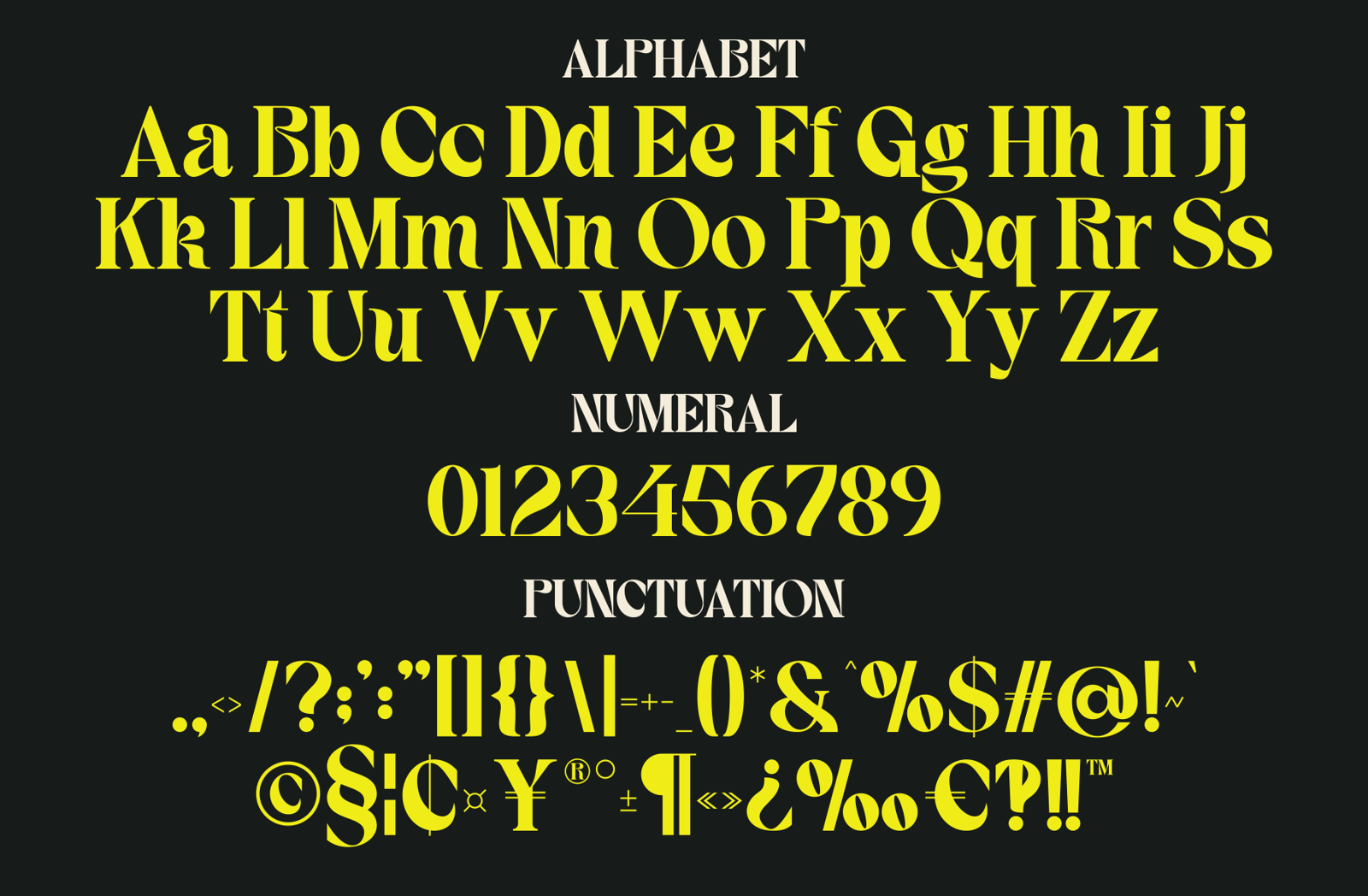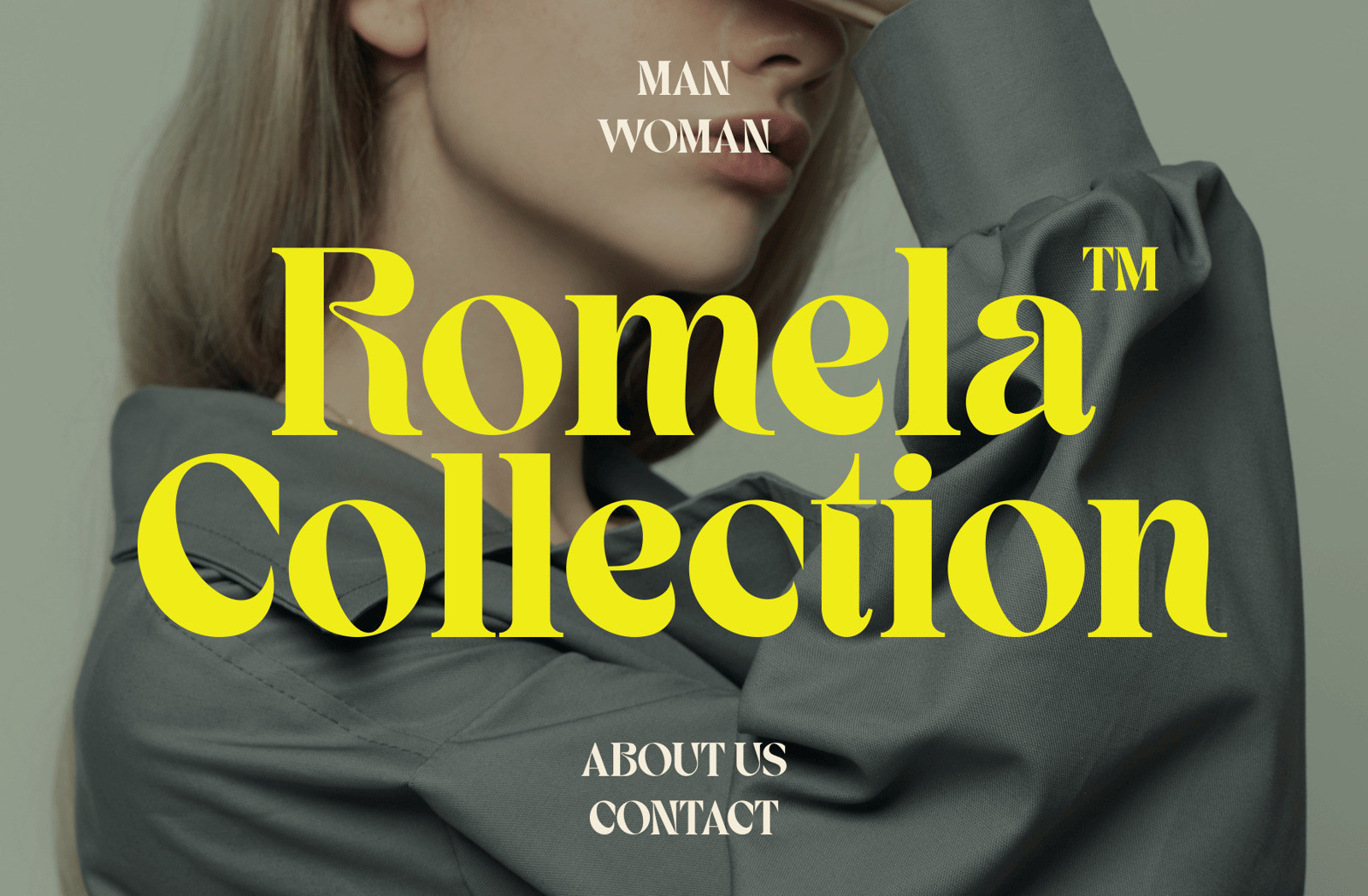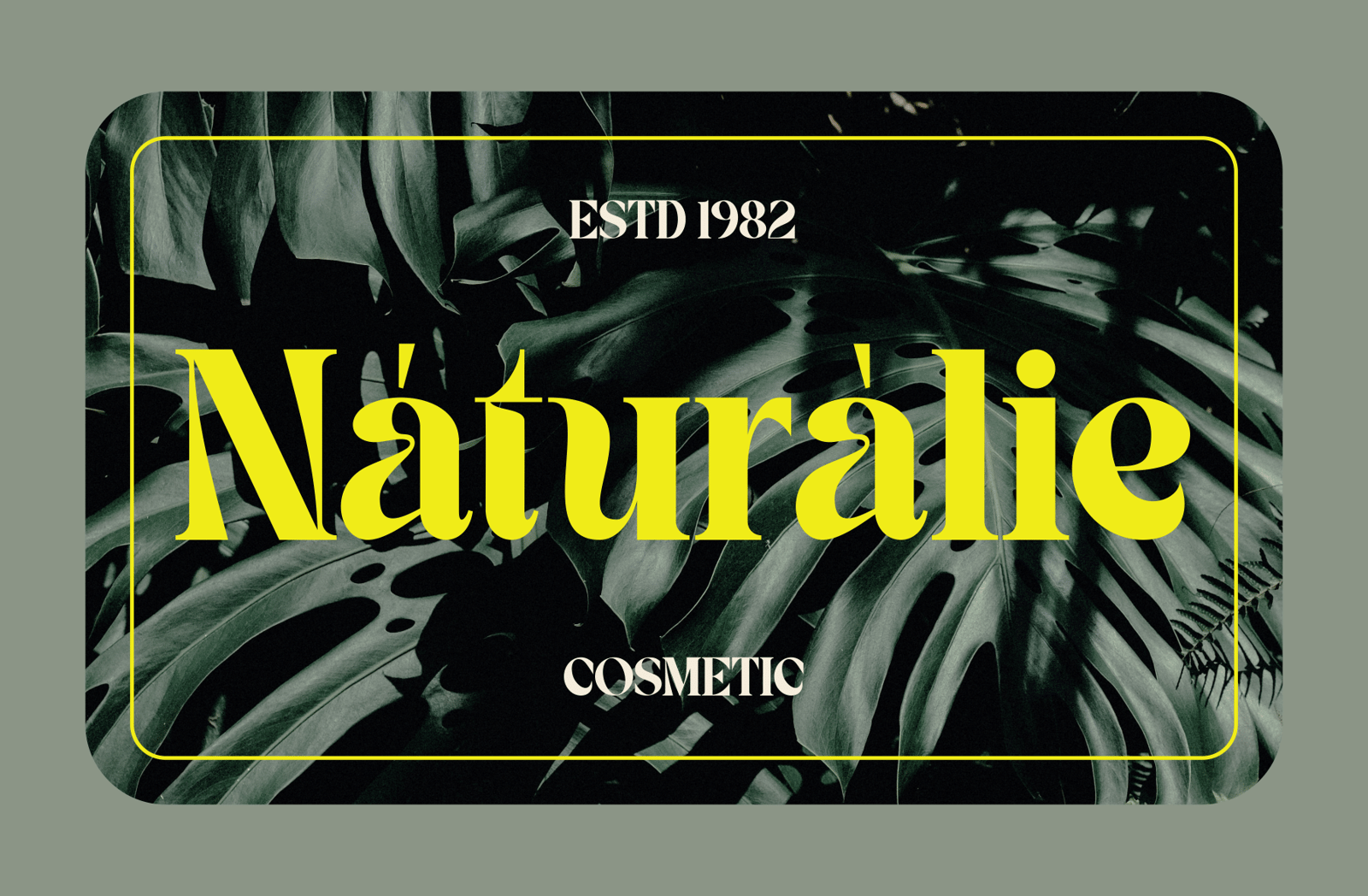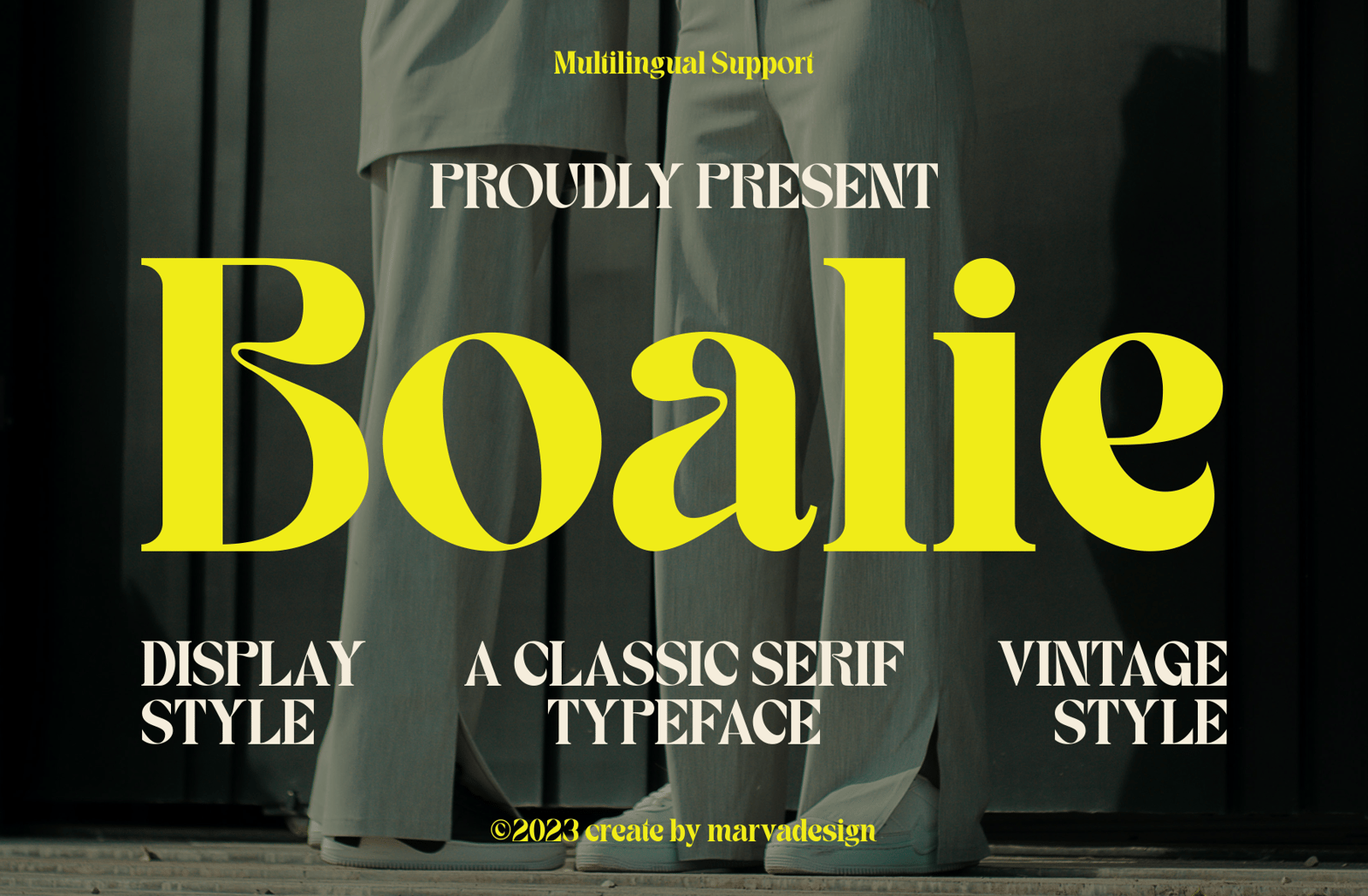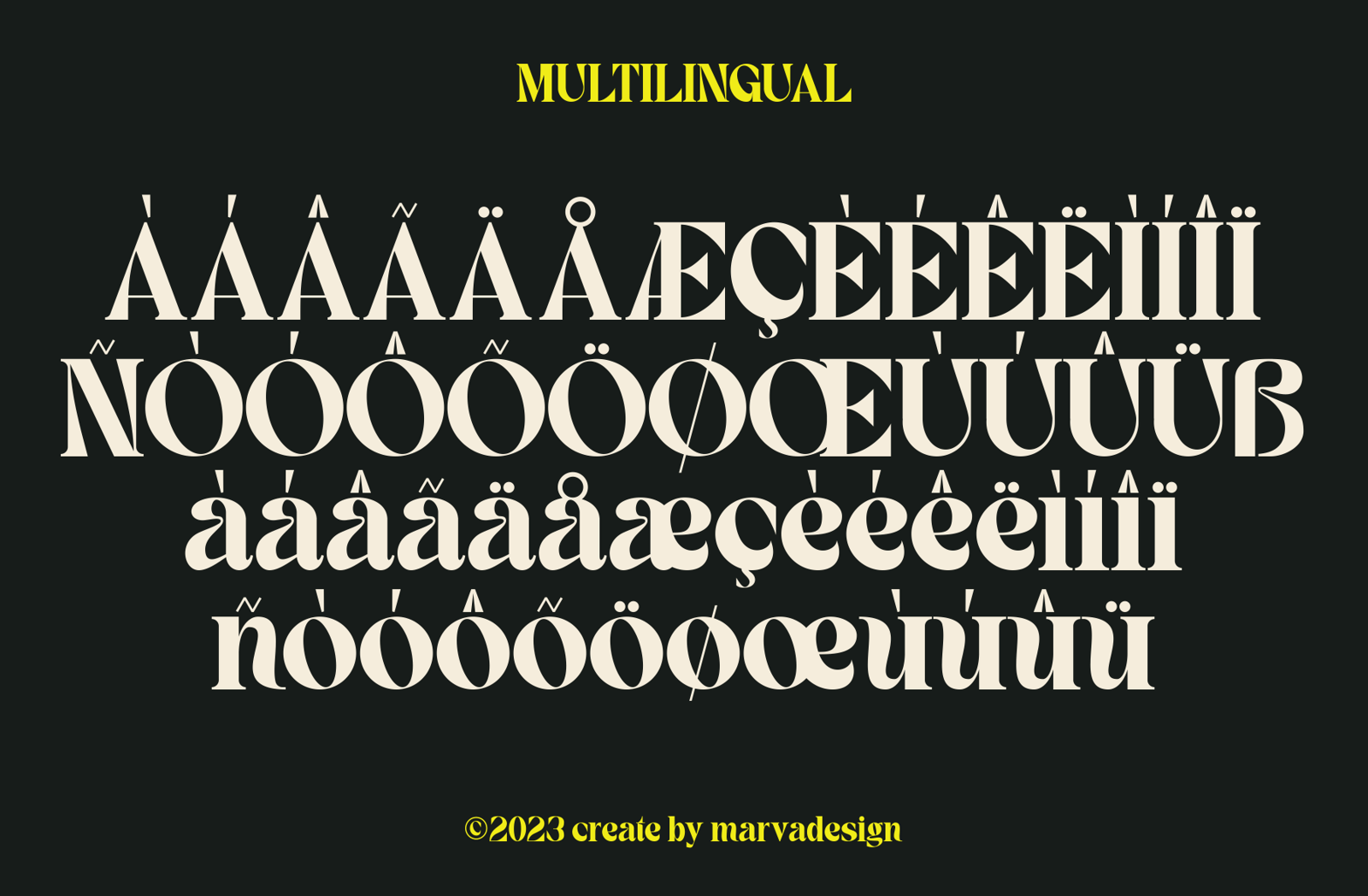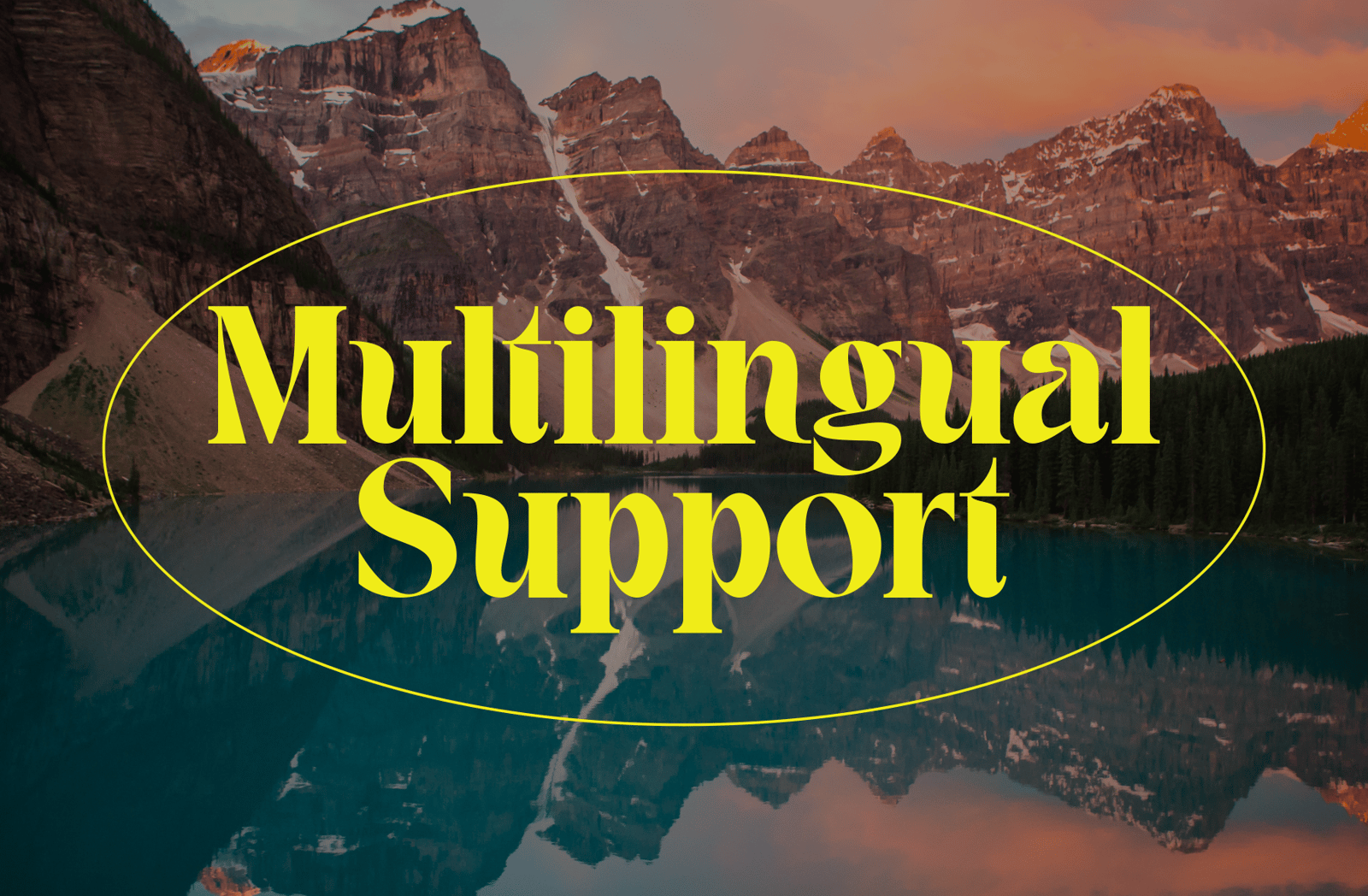
Boalie - A Classic Serif Font
Introducing our new product **Boalie Font** - Modern Font
**Boalie Font** - Modern Font is a bold and authentic display font. The font is suitable for any branding project like logo, Template Design, Product and many more. outstanding in a wide range of contexts.
* Uppercase
* Lowercase
* Multilingual
* Ligature